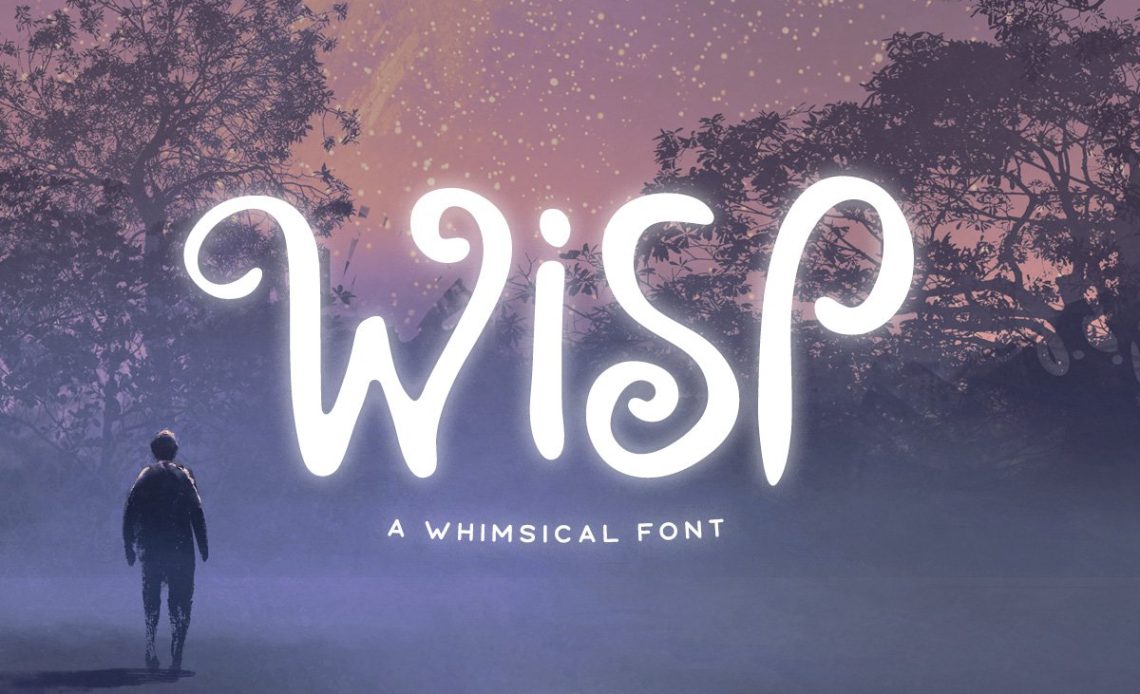
Welcome to the world of Wisp Typeface, the Best Font for Book Interior! Created by the incredibly talented Mehmet Tugcu, this font family is a true masterpiece that will leave you in awe. Wisp is not just another font, it is a display font that will capture your imagination and transport you to a magical realm.
With its enchanting curves and mystical design, Wisp Typeface is the perfect font for anyone looking to create a unique and captivating book interior. The font includes multilingual uppercase letters, numbers, punctuation, and an extra font file with tons of decorative elements that will elevate your designs to the next level.
One of the most impressive features of Wisp Typeface is that almost every letter has an alternate version that can be toggled with Caps Lock, giving you even more creative control over your designs. This makes it an incredibly versatile font that can be used in a variety of different contexts.
Whether you are a professional graphic designer or a hobbyist, Wisp Typeface is sure to impress. Its magical qualities will leave your audience spellbound and wanting more. Use it to create stunning book covers, logos, posters, or any other design project that requires a touch of magic.